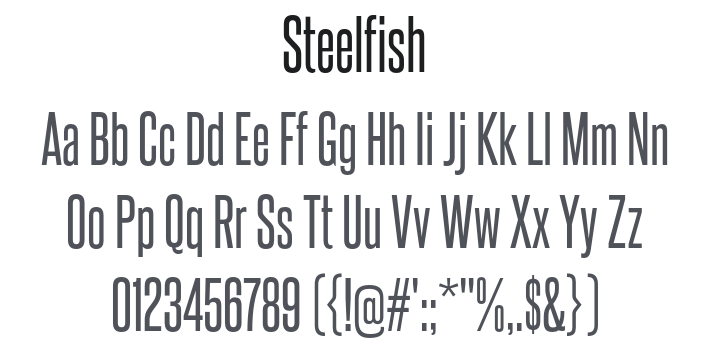
Steelfish Font Family
About Steelfish
Steelfish is a compact headline sans built for strong communication in limited space. Inspired by early 20th-century newspaper typography, it translates that directness into a modern, precisely engineered design. Ultra-condensed proportions allow dense copy without losing clarity, ideal for posters, covers, and branding. Seven weights with obliques range from hairline to heavy, providing nuanced control across styles. Though historically rooted, its geometry and rhythm suit both retro and contemporary layouts. Supporting Latin, Greek, Cyrillic, and Vietnamese scripts, Steelfish delivers efficiency and impact wherever words need presence.